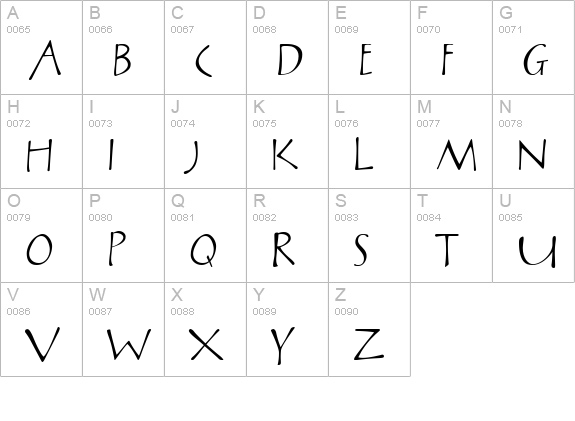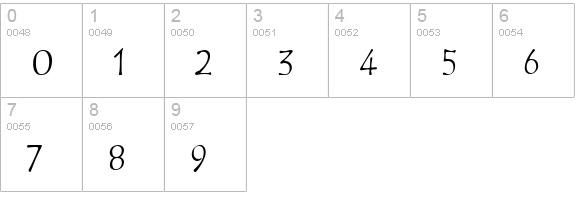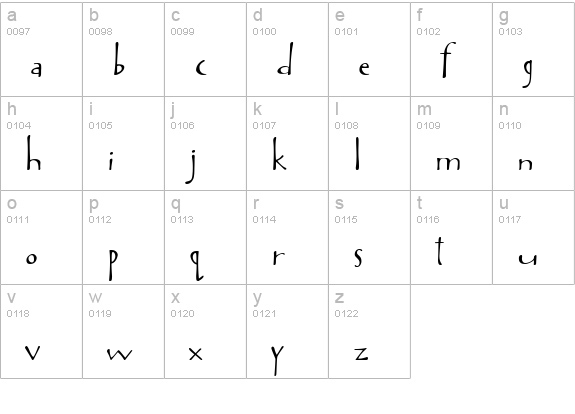
Avril font is a modern and stylish typeface that exudes elegance and sophistication. Its sleek lines and unique design make it perfect for a wide range of projects, from branding to editorial design. With its clean and sharp letterforms, Avril font is sure to make your text stand out and capture attention. The best part? Avril font is completely free to download at FontsMarket.com. Whether you're a designer looking for a new font to add to your collection or a business owner in need of a fresh look for your brand, Avril font is the perfect choice. Don't miss out on this fantastic opportunity to elevate your designs with this stunning typeface. Download Avril font today and see the difference it can make in your projects!